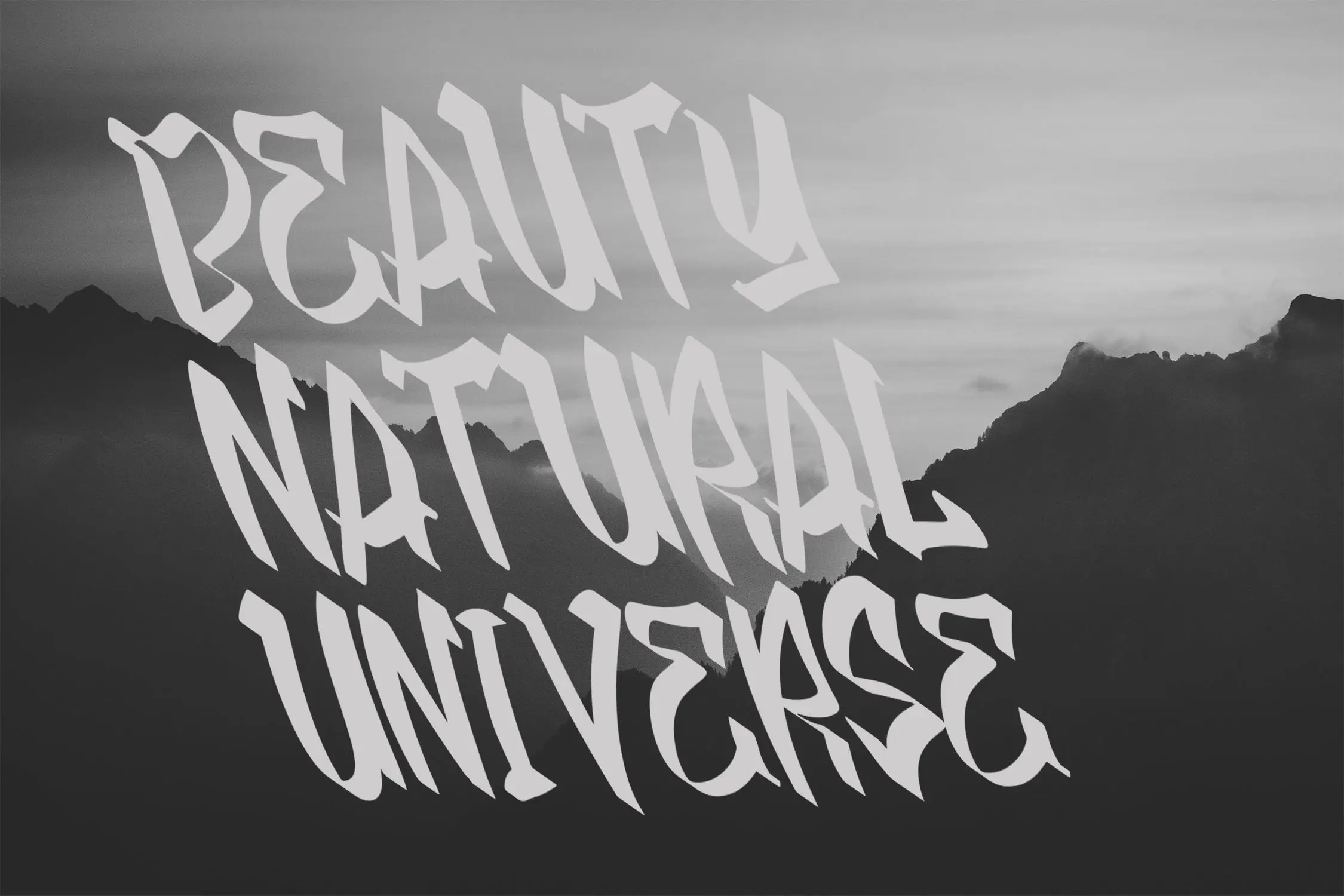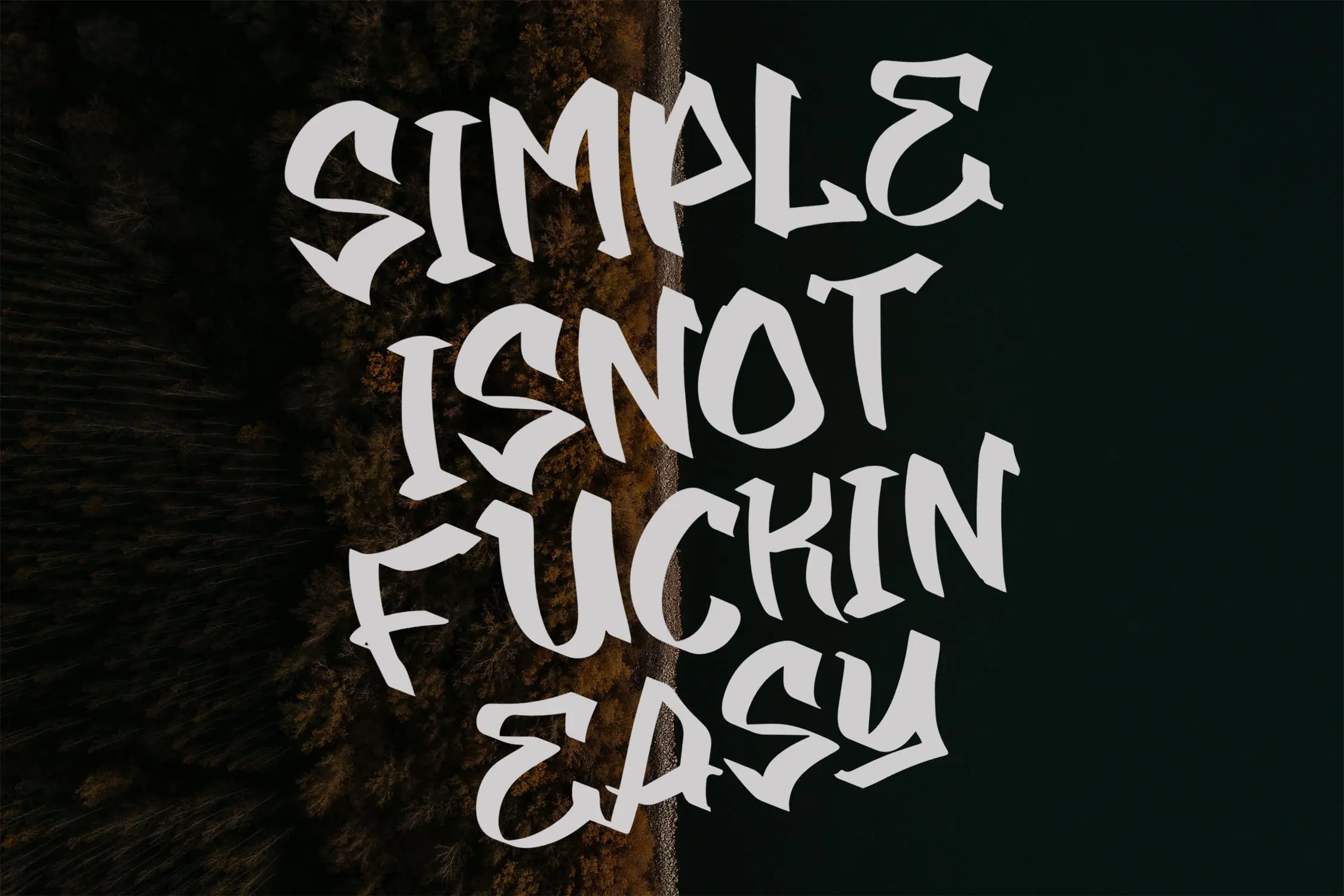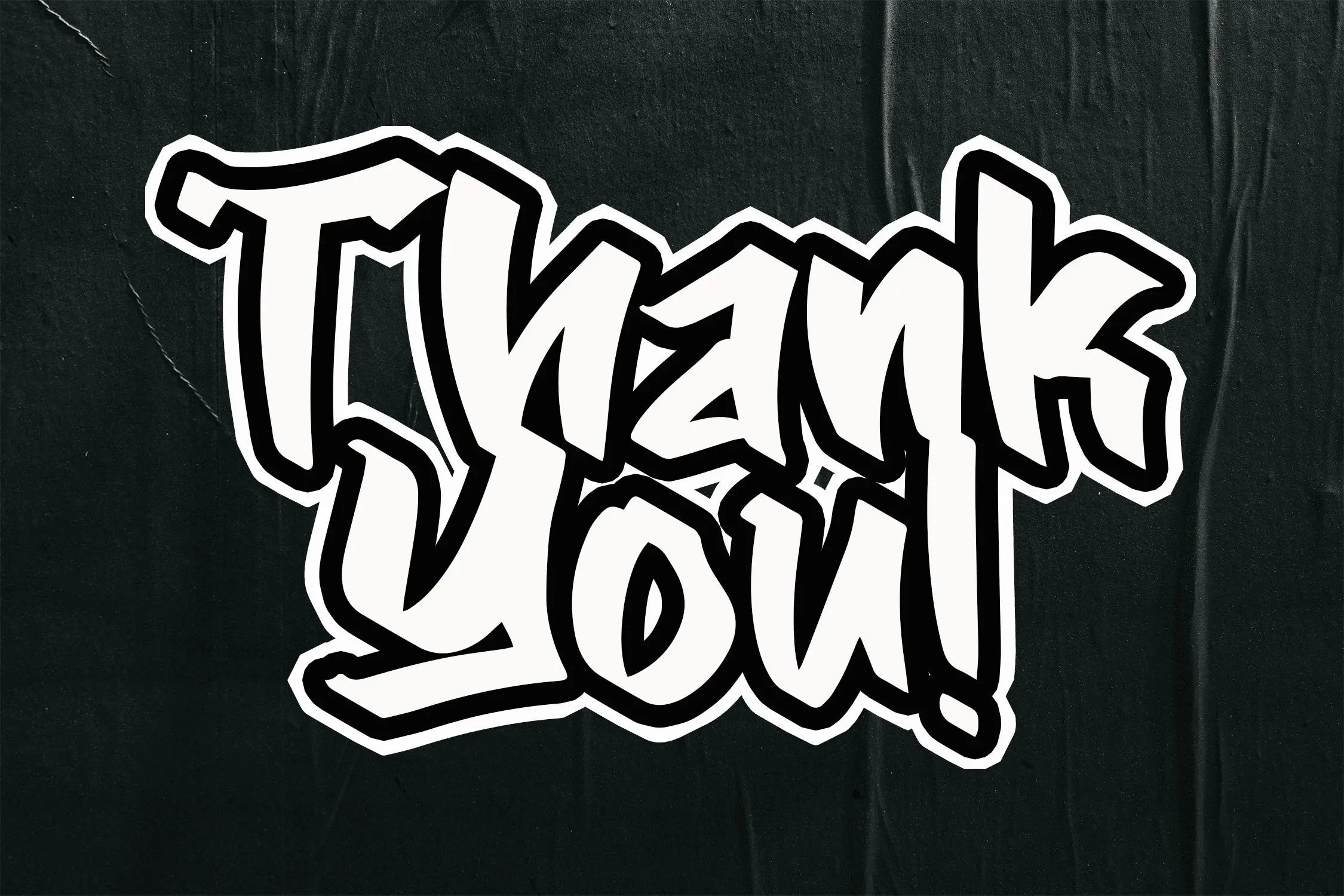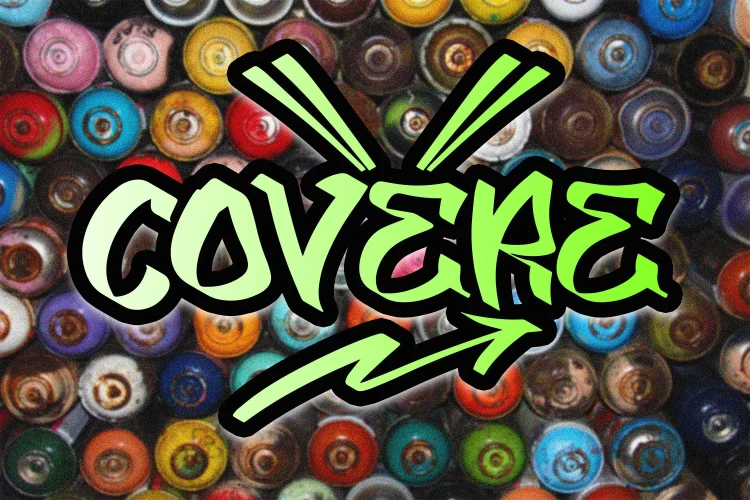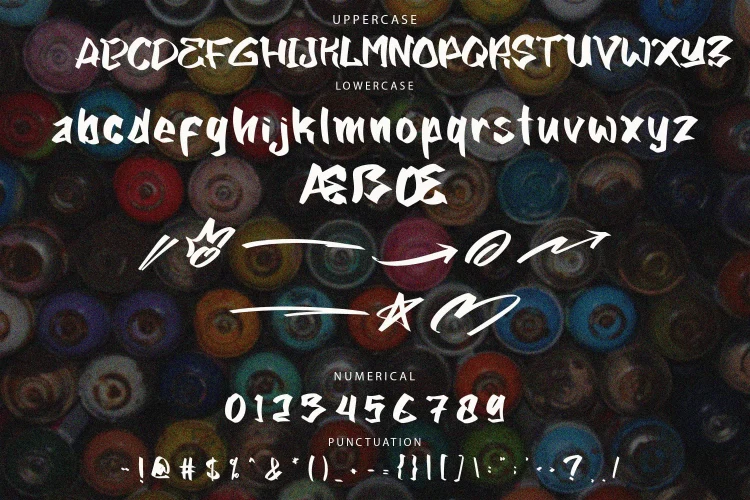
COVERE – Bold Handbrush Graffiti Font
Discover COVERE, a dynamic graffiti font with a bold handbrush style that stands out with its uniquely crafted characters. This font is perfect for adding a creative and edgy touch to your designs, making your graphics more eye-catching and impactful. Whether you’re working on street art-inspired projects, posters, or branding, COVERE will elevate the visual appeal of your work.
Font Features:
- Includes swashes for extra flair
Bring a fresh, artistic edge to your projects with COVERE graffiti font!